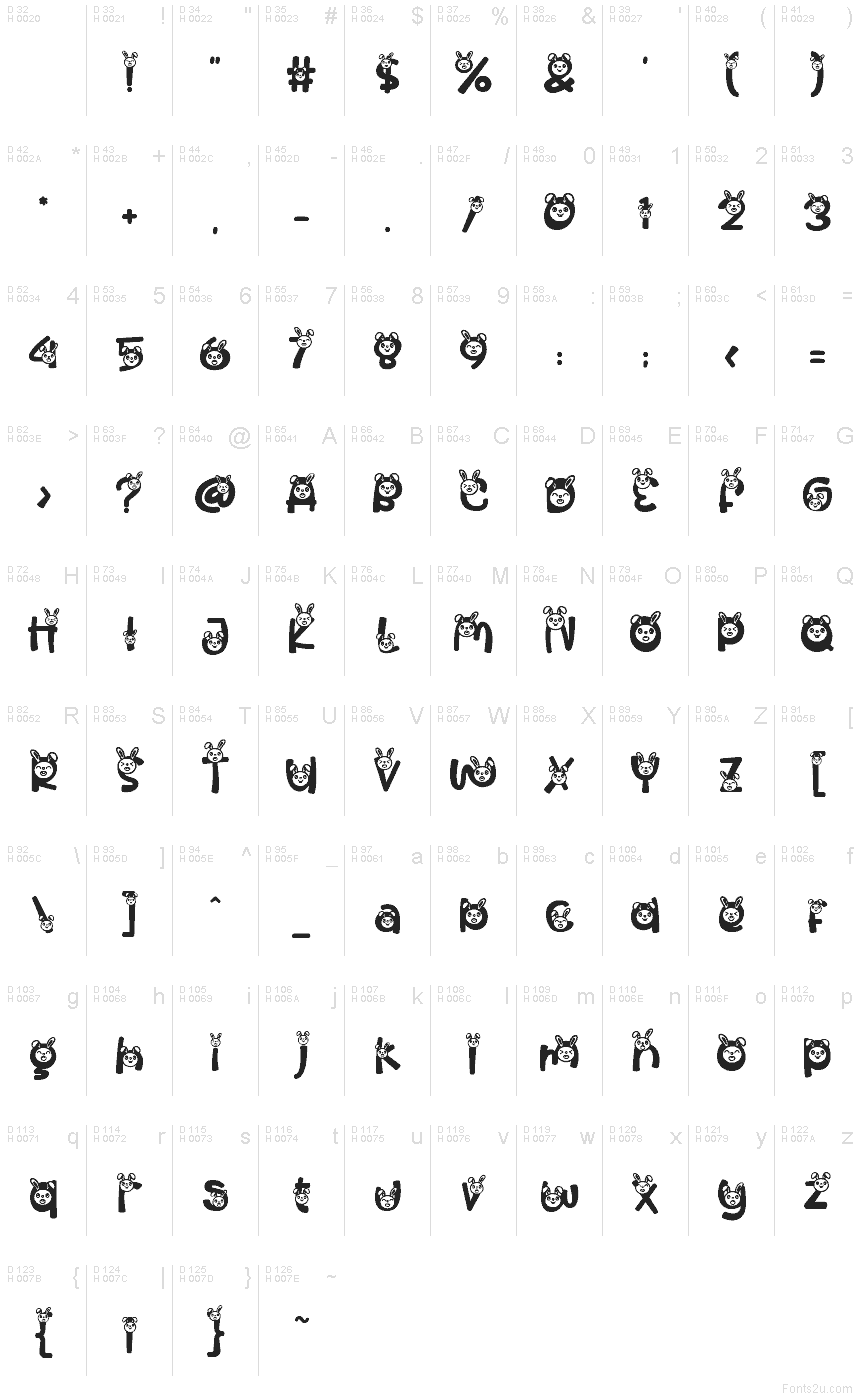
Pastel Palooza BunnyFace
Pastel Palooza BunnyFace font by PutraCetol Studio is a holiday-themed font with cartoon-like, whimsical elements. Its novelty style and expressive forms incorporate Easter-inspired design aspects. The decorative typeface communicates an airy, cheerful design appearance that visually engages viewers.